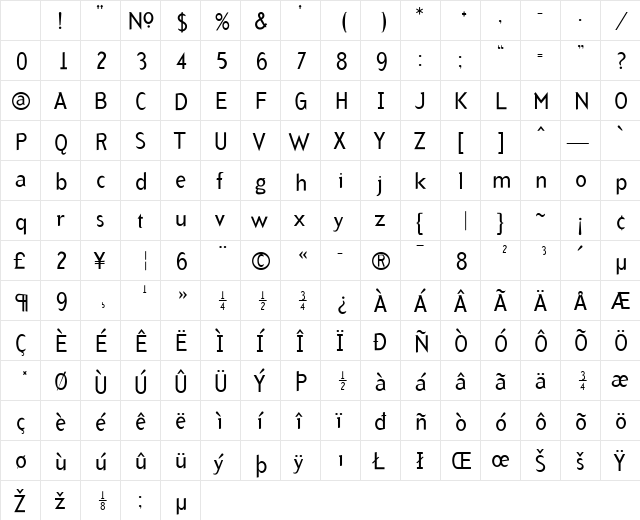
Arb is a composed and adaptable typeface that performs quietly and consistently across a wide range of design contexts.
This font was published by Emigre Graphics, designed by Barry Deck. Check the technical specs section for copyright and designer details.